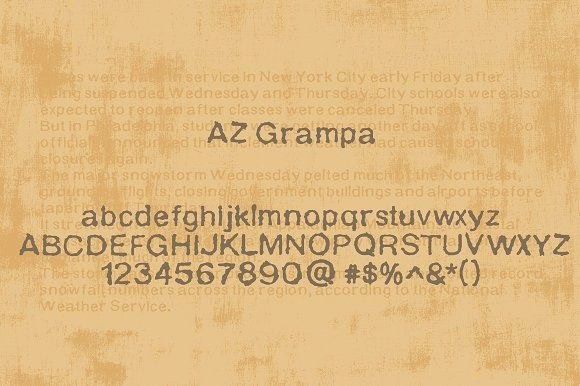
az grampa
AZ Grampa Font in TTF, OTF, and WOFF formats offers a whimsical, vintage appeal. Perfect for playful designs, posters, and casual branding.
Explore the Whimsical Charm of AZ Grampa Font
AZ Grampa Font, created by Alex Z. in 2023, captures a delightful blend of retro and playful aesthetics, making it ideal for a variety of design projects. Its vintage vibe brings a sense of nostalgia and light-heartedness that resonates well with audiences seeking fun and creativity.
Features and Formats of AZ Grampa Font
The Inspiration Behind AZ Grampa Font
Inspired by classic typography and playful illustrations, AZ Grampa Font aims to evoke warmth and friendliness. Alex Z.’s artistic approach brings out unique features such as rounded edges and flowing lines, ensuring each letter is not just readable but also visually appealing.
Ideal Uses for AZ Grampa Font
AZ Grampa Font excels in projects that require a fun and inviting atmosphere. From children’s books to cafe menus and casual branding, this font captures attention and adds a charming touch to any creative endeavor.